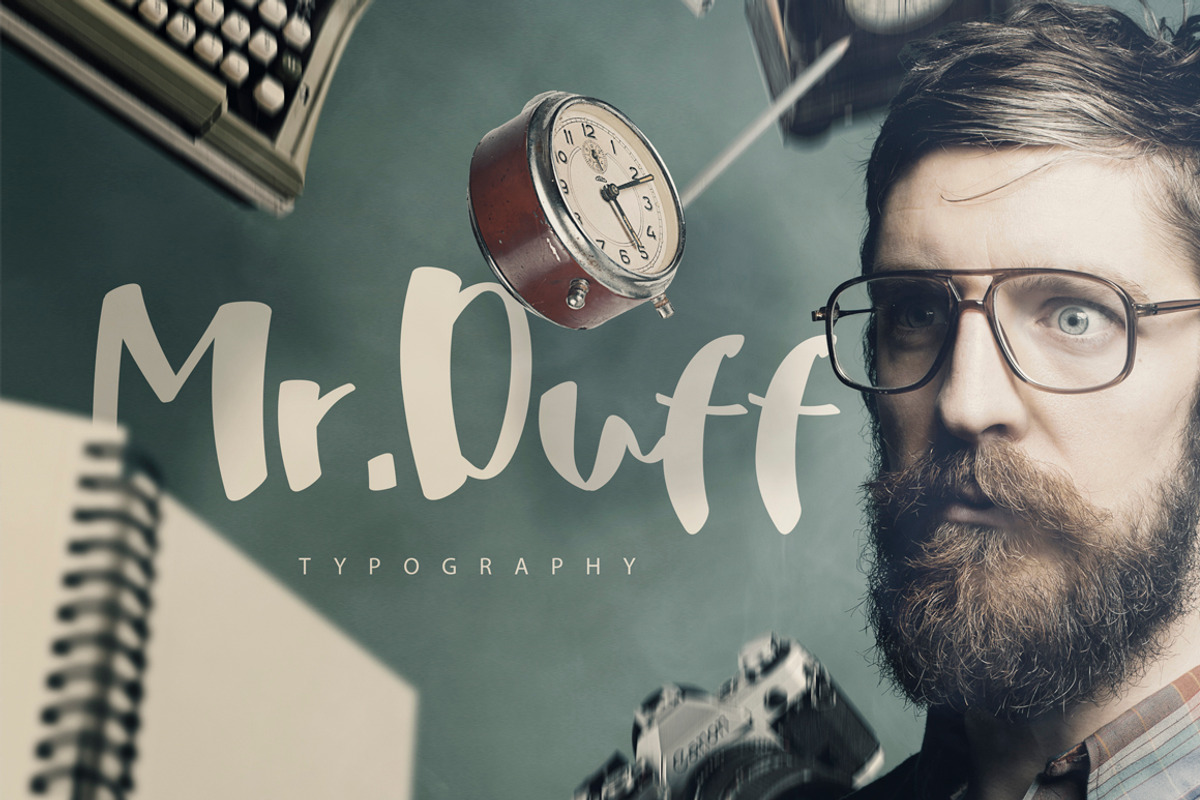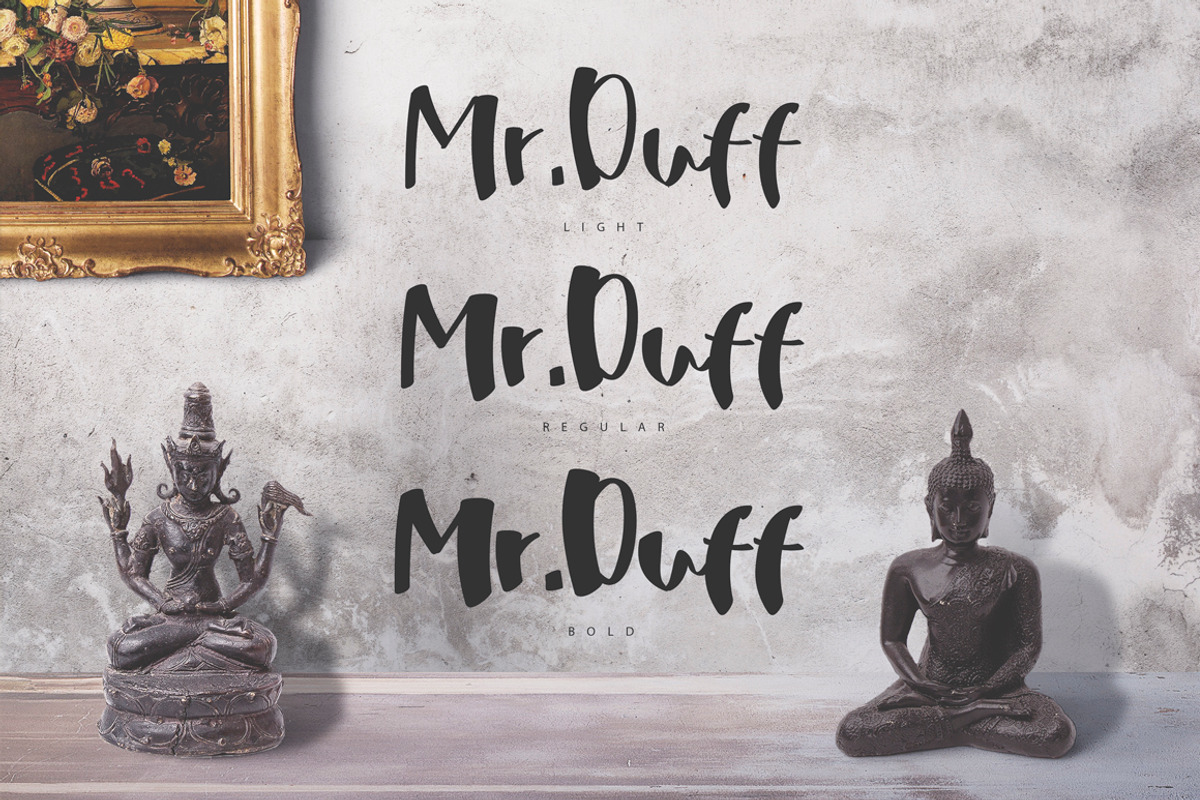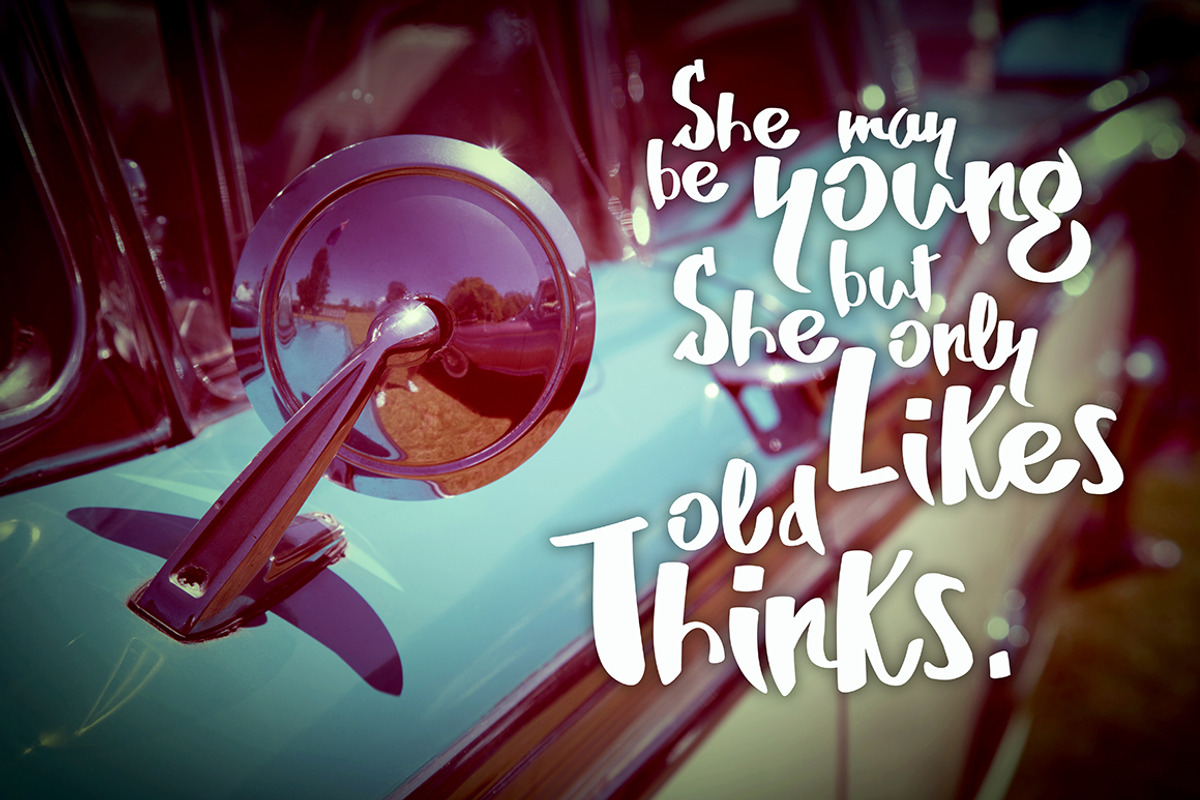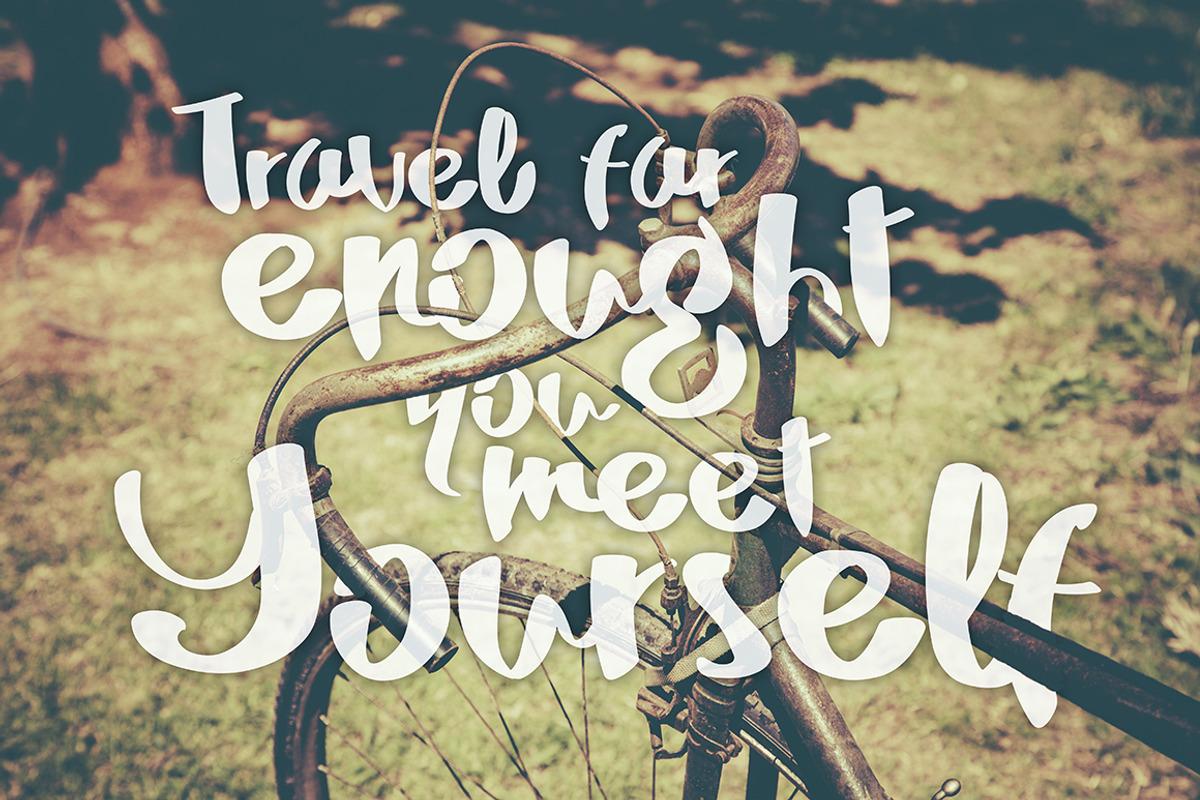
Mr. Duff Typeface
Mr. Duff Typeface by SmartDesigns is a font selected for branding, posters, packaging, typography.
Why Mr. Duff Typeface is worth a look
Mr. Duff Typeface by SmartDesigns fits naturally into Branding, posters, packaging, typography.